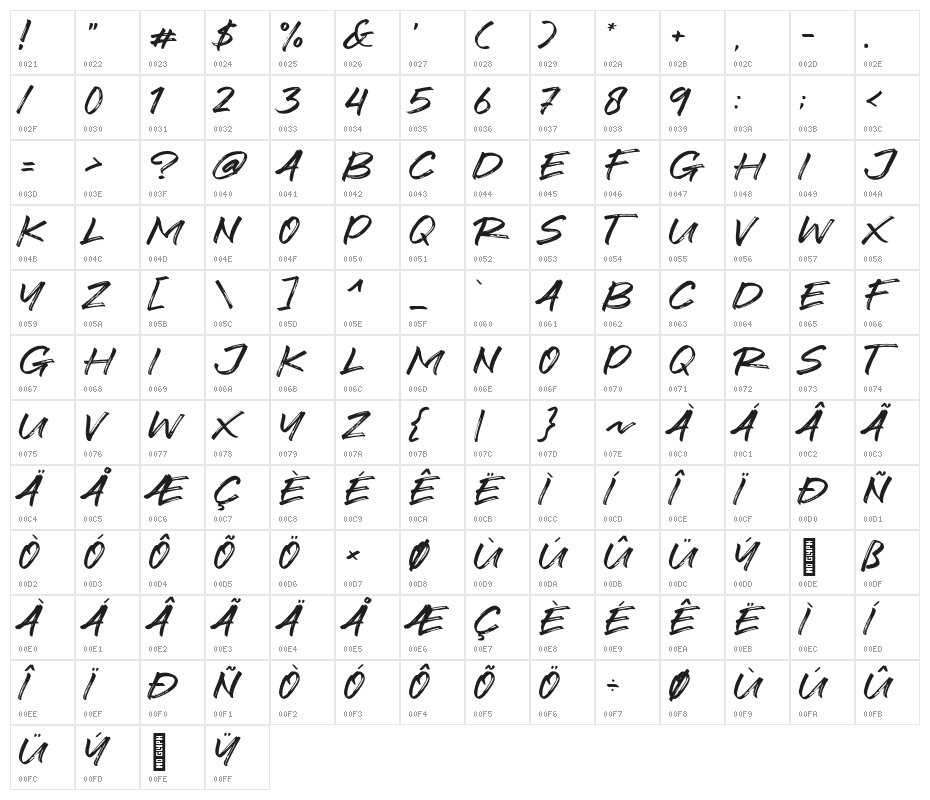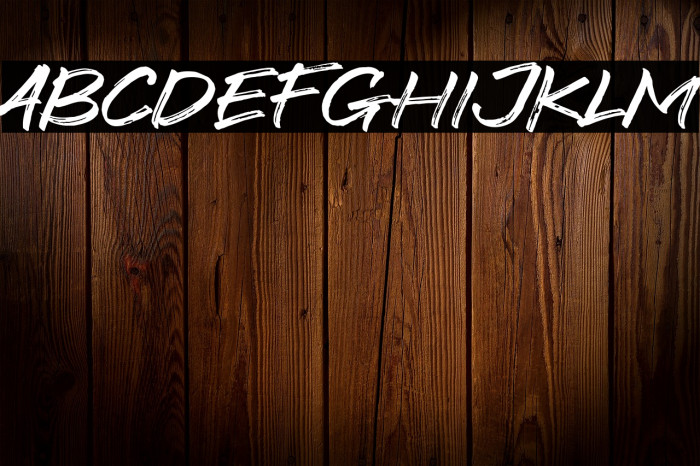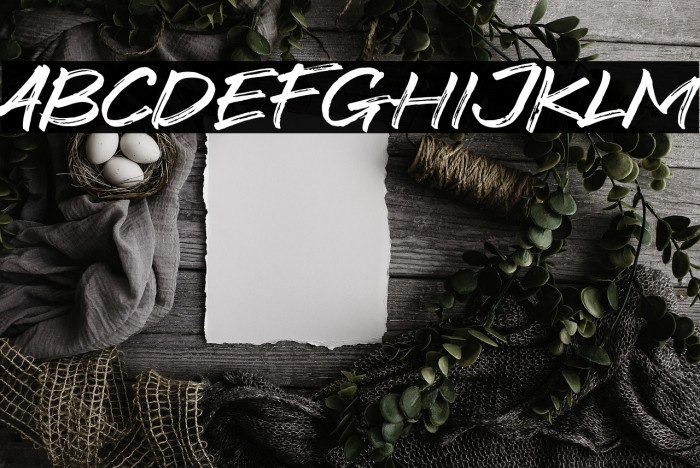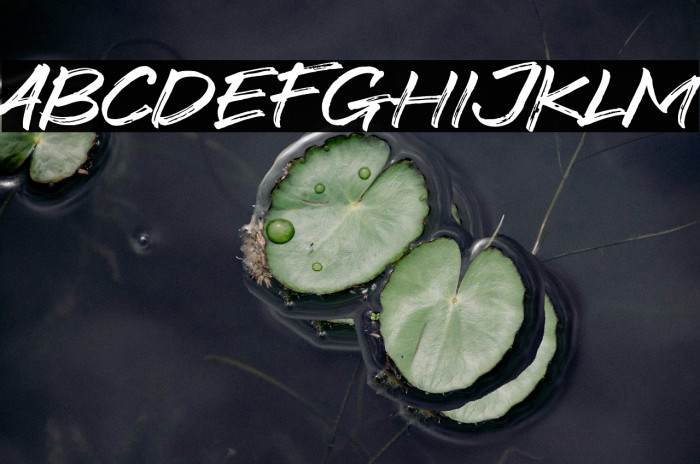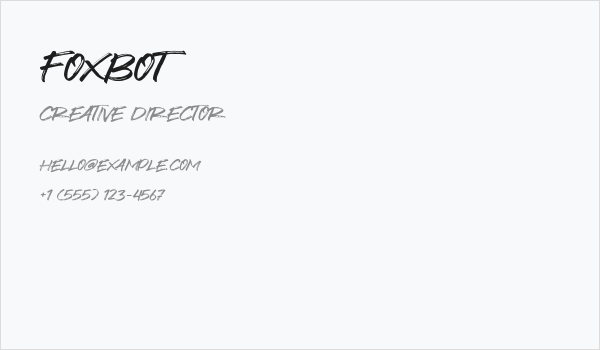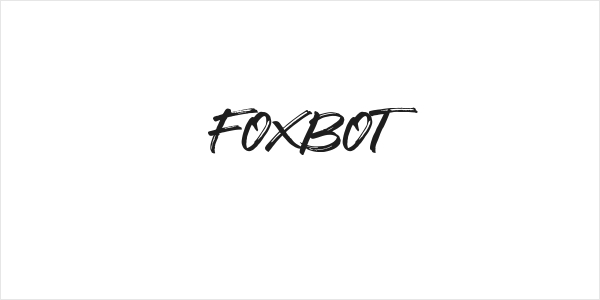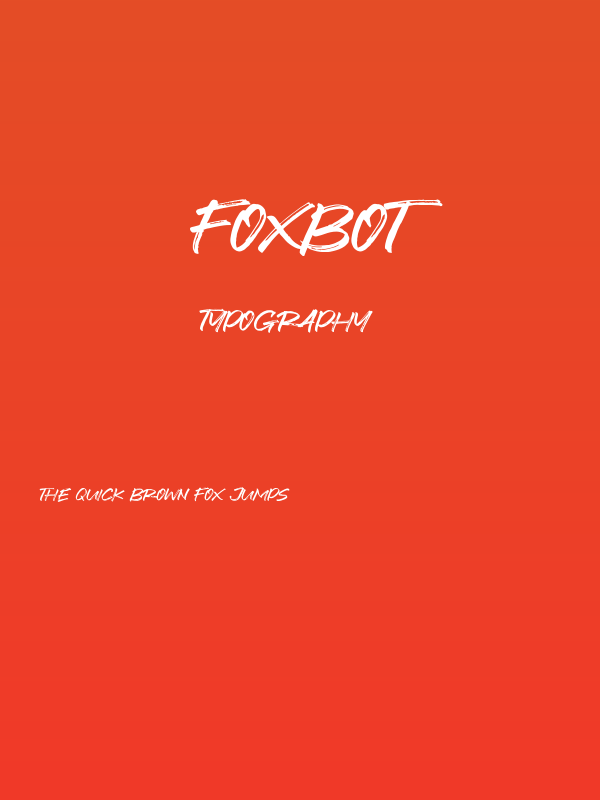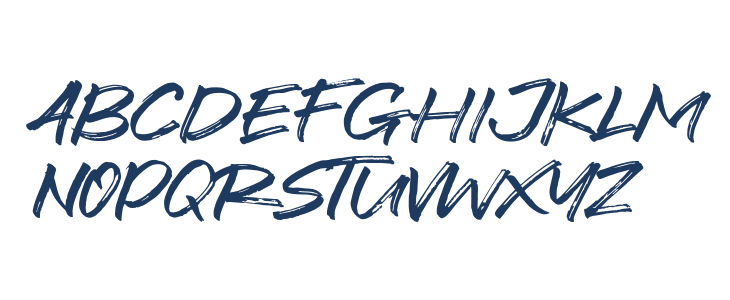
Foxbot Font
Foxbot Description
This font features a dynamic, brush-like style that conveys a sense of energy and movement. The strokes are bold and expressive, with a hand-drawn appearance that adds a personal touch. The uppercase and lowercase letters maintain a consistent flow, while the numbers and special characters complement the overall aesthetic. The font's irregular edges and varying stroke thicknesses give it a lively and artistic feel, making it suitable for projects that require a creative and informal look.
| Use Case | Logos, Headlines, Posters |
| Proposed Projects | Ideal for branding, posters, social media graphics, and any project needing a creative, informal touch. |